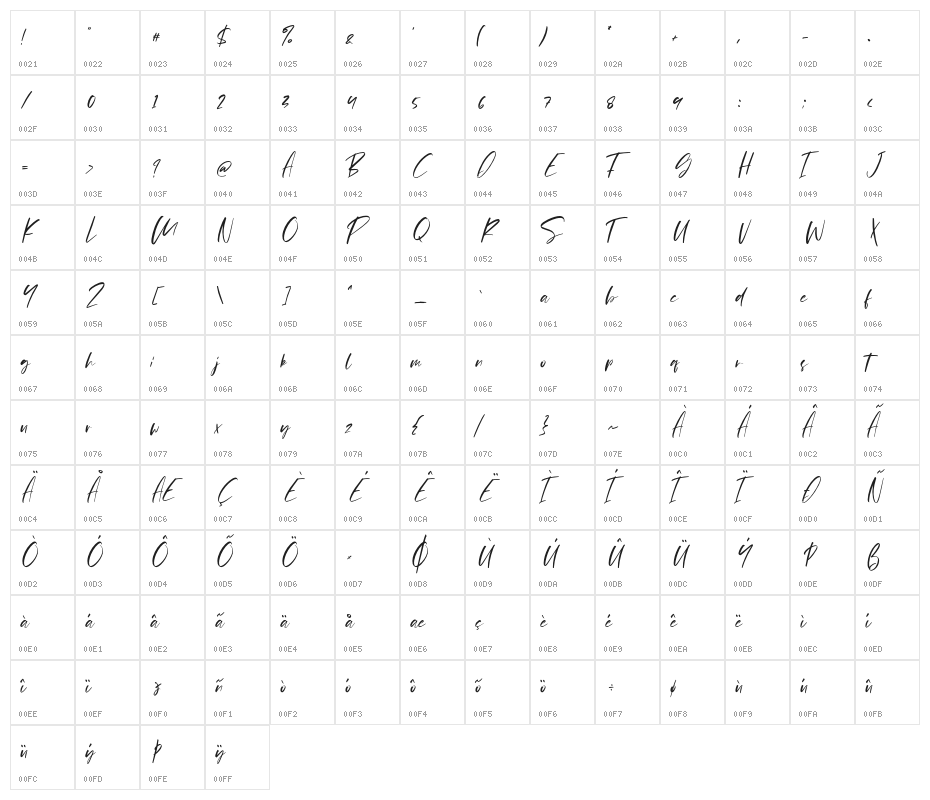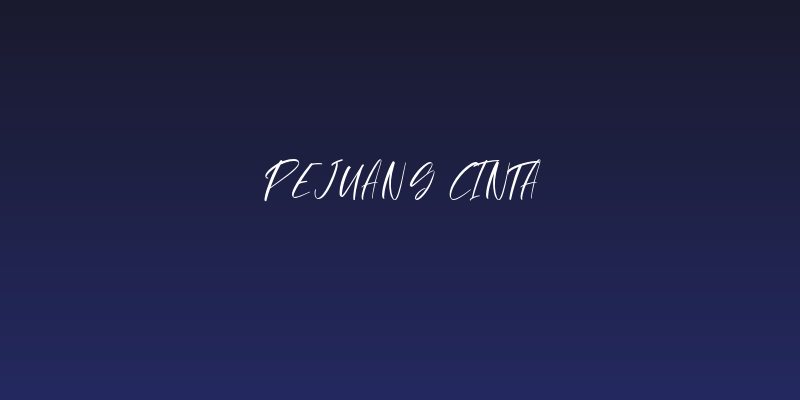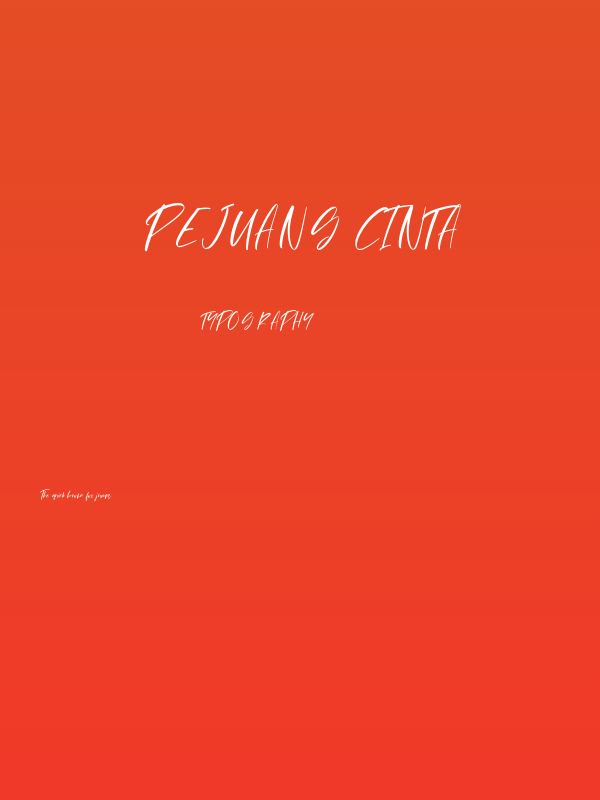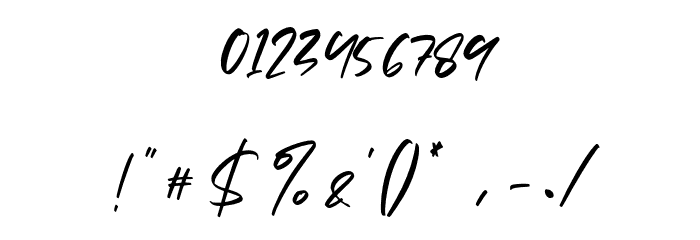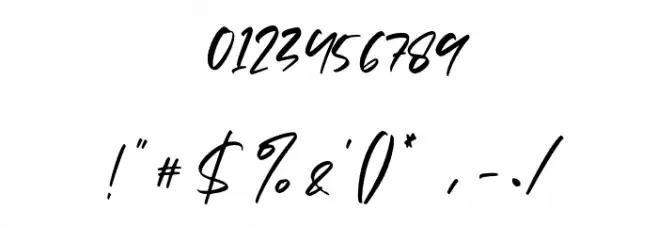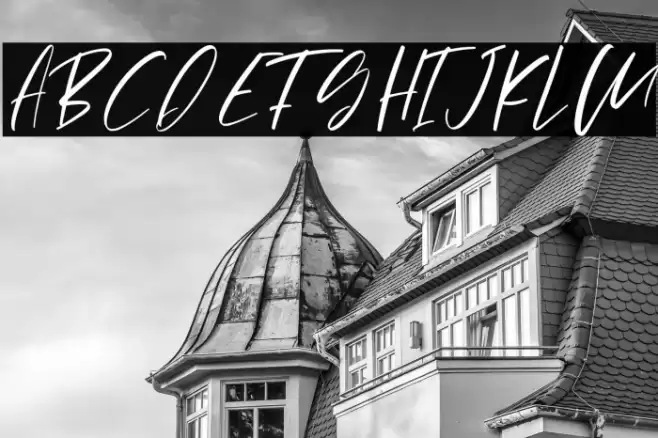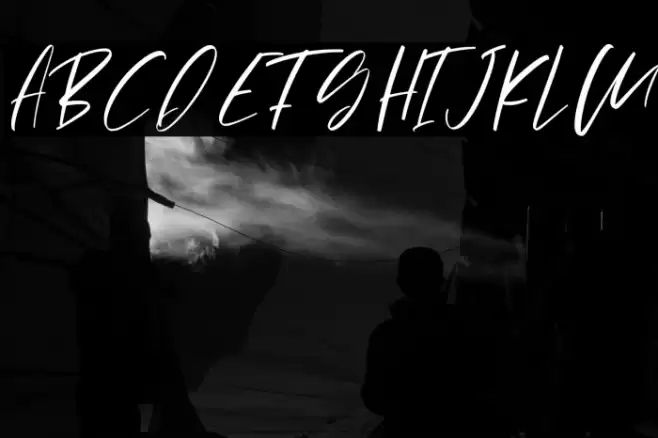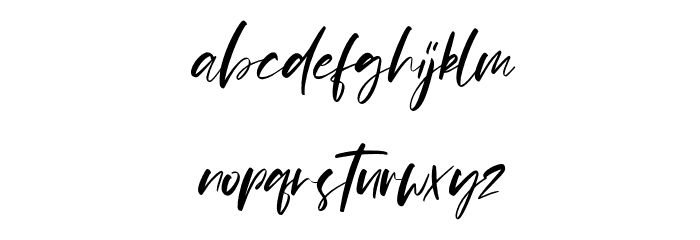
Pejuang Cinta Font
Pejuang Cinta Description
This font exudes a lively and dynamic energy, characterized by its handwritten style that mimics the fluidity and spontaneity of natural handwriting. The letters are slightly slanted, adding a sense of movement and elegance. The strokes vary in thickness, providing a medium contrast that enhances its legibility while maintaining an artistic flair. The uppercase letters are bold and prominent, while the lowercase letters are more delicate, creating a harmonious balance. This font includes a full set of numerals and a variety of special characters, making it versatile for different design needs.
| Use Case | Logos, Headlines, Invitations |
| Proposed Projects | Ideal for wedding invitations, greeting cards, branding projects, and social media graphics. |